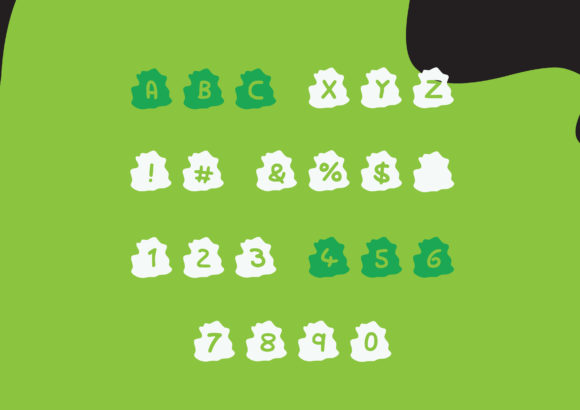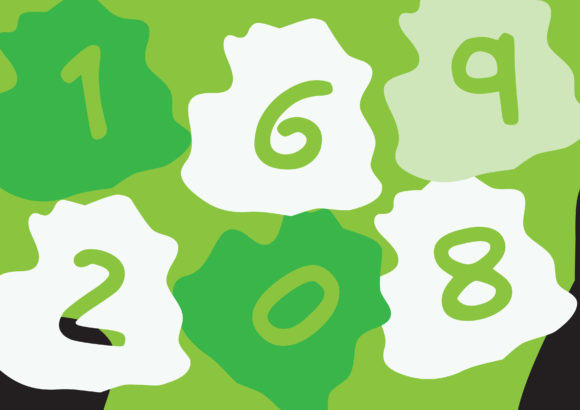
Introduction to Play Splat Font
Play Splat is a fun decorative font.
Use this font for any crafting project that requires a personalized look .
Key Features of Play Splat Font